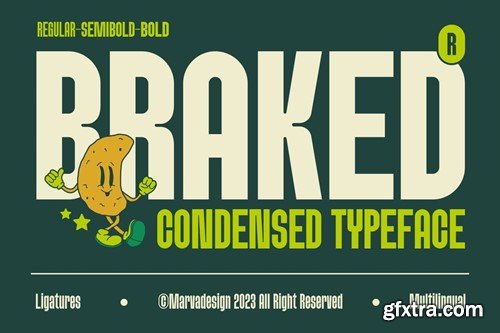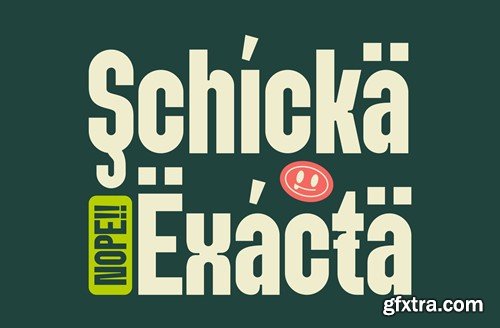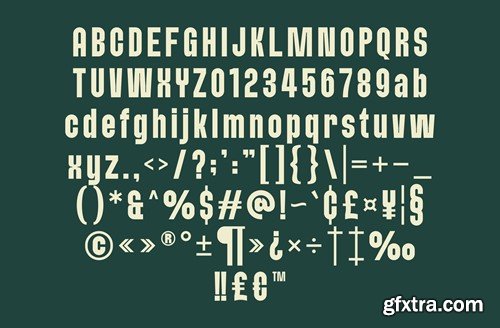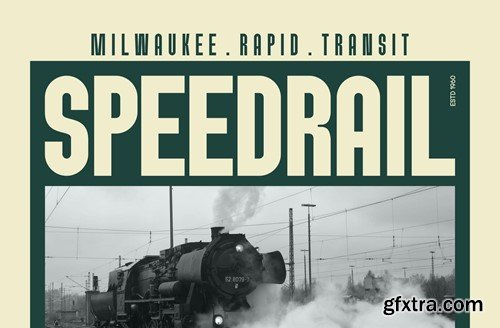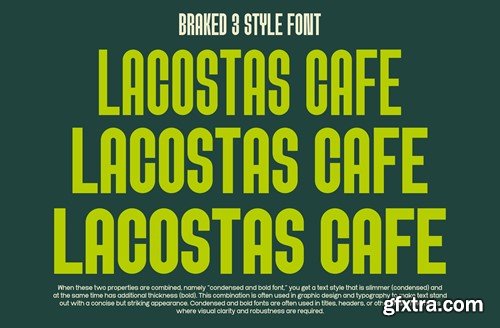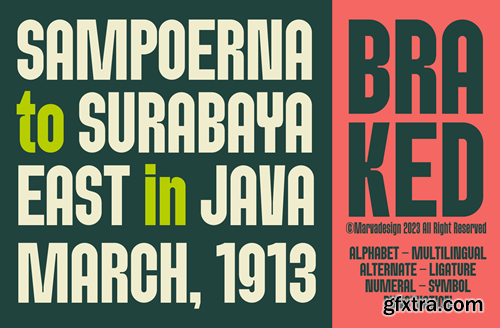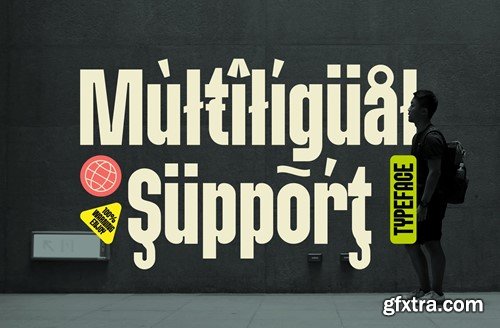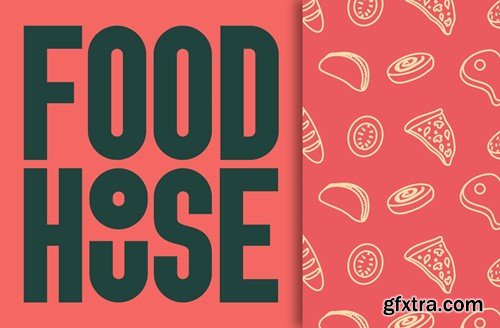
制动 - 一家Sans减细字体 2CGKVRA
Braked - A Family Sans Condensed Font 2CGKVRA
Braked - A Family Sans Condensed Font
Introducing our new product Braked Font - A Family Sans Condensed Font Font authentic display font. The font is suitable for any branding project like logo, Template Design, Product and many more. outstanding in a wide range of contexts.
• Uppercase
• Lowercase
• Multilingual
• Ligature